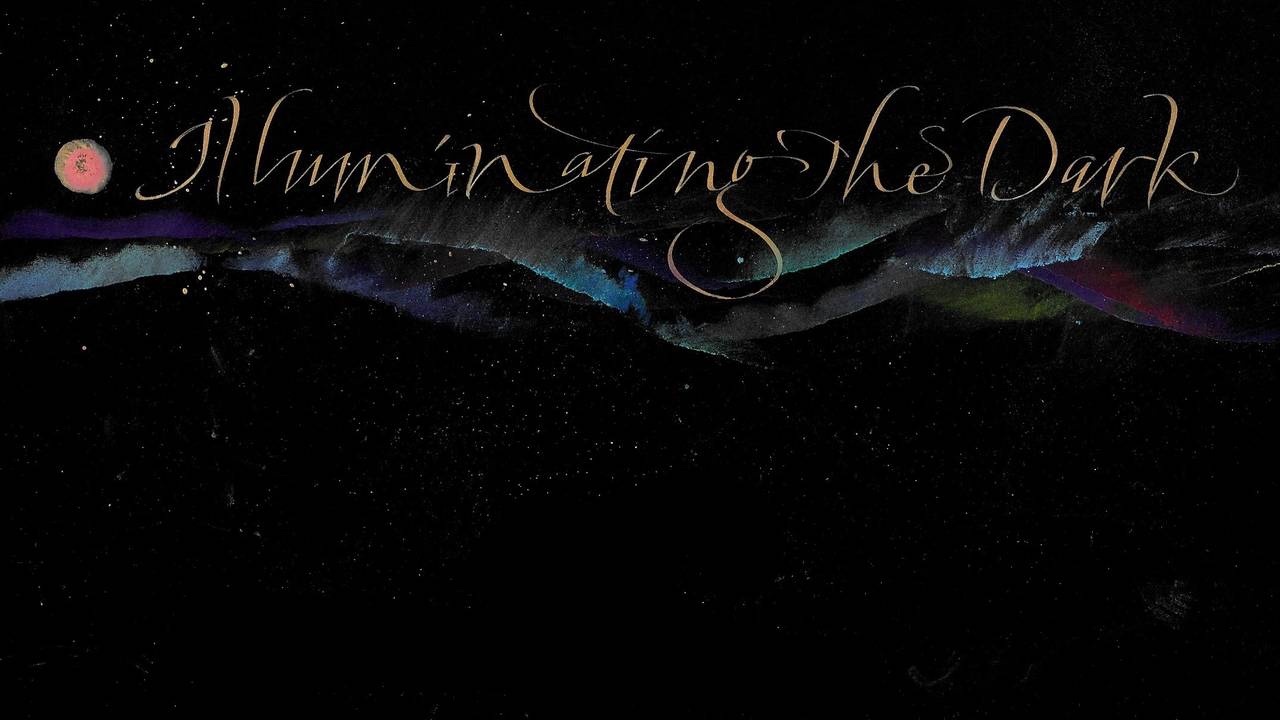
Calligraphers typically reach for familiar texts when learning a new script. We don’t consider our own words worthy of beautiful writing, and thus miss opportunities to connect more personally with calligraphy.
Through simple Haiku poems this class provides an opportunity to connect the words we write with a script we develop—our personal expressions amplified and illuminated through the drama of color and gold on black paper. In addition, students will have the opportunity to create a single section, pamphlet-style book of their ‘illustrated” haikus.
In this course we will be:
- Exploring ways to develop a personal script using both handwriting and an informal, monoline Italic;
- Combining your own words with a script of your own;
- Expanding composition and design skills;
- Learning simple techniques for mixing gouache, using pastel to add color and design elements with your text;
- Creating a small pamphlet book or “broadside” page of your own haiku.
While we will have a project (haiku book or broadside) goal in mind, we’ll celebrate practice pages as much as a finished product.
Skills covered
Calligraphy, Personal script development process, Handwriting, Gouache and color mixing, simple pastel abstract imagery, book making
*Students can opt for color pencils instead of metal nibs and gouache/ink.